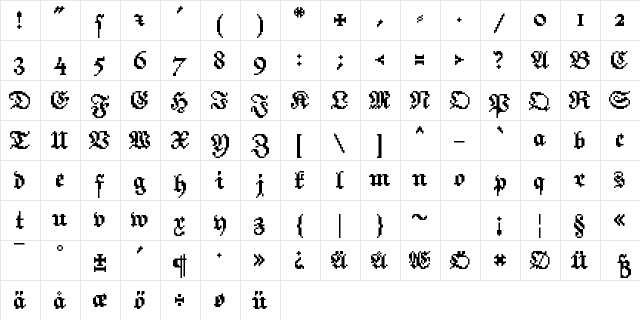
PixelFraktur Medium
Design Context for PixelFraktur Typeface
PixelFraktur channels the dramatic heritage of Fraktur and Gothic scripts, bringing a sense of historical gravitas to any design.
A natural fit for music packaging, gothic editorial design, and any project that needs historical weight.
Font Pairing: Pair with a clean neutral sans-serif for body copy to let PixelFraktur's character lead without overwhelming the composition.
Pro Tip: Reserve PixelFraktur for display and logo use — pair it with a clean sans-serif for body copy to prevent the composition from feeling oppressive.